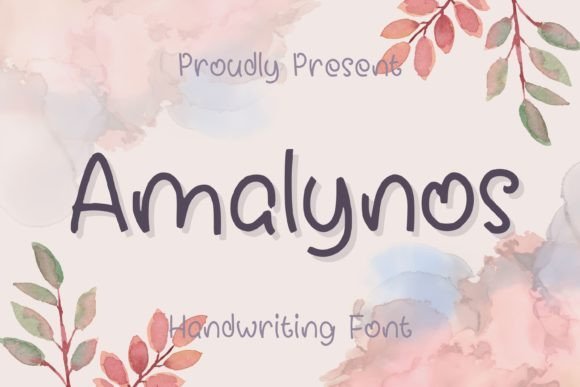
Introduction to Amalynos Font
Amalynos is a cute and simple lettered handwritten font that can be used for all chalkboard quotes or teaching material.
Its authentic look will add a realistic feel to your designs .
Key Features of Amalynos Font
Why Choose Amalynos Font?
Amalynos Font offers exceptional quality and versatility, making it a valuable addition to your design toolkit. Whether you’re creating for personal projects or commercial use, Amalynos Font delivers professional results.